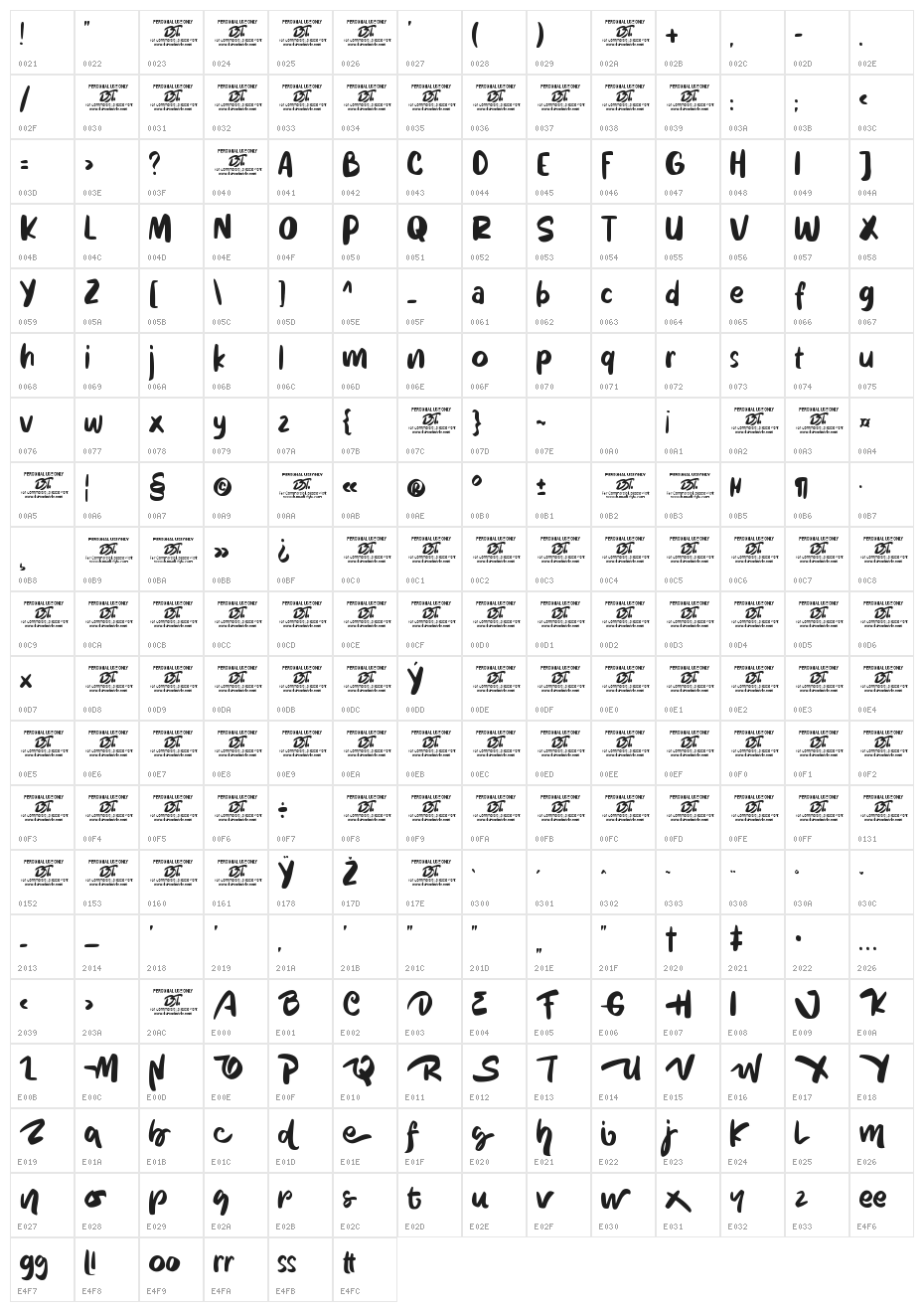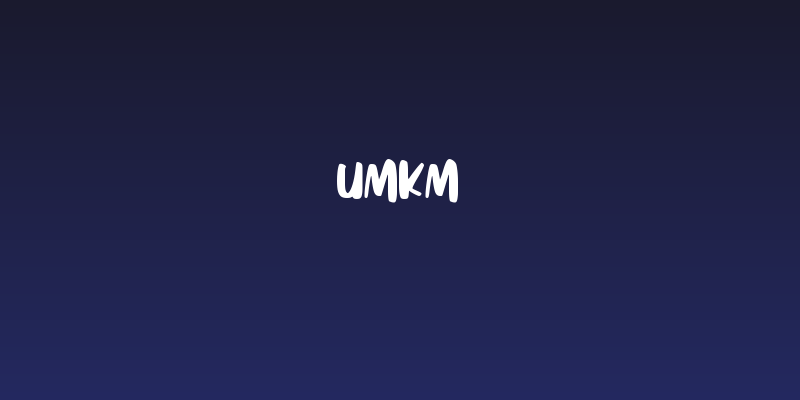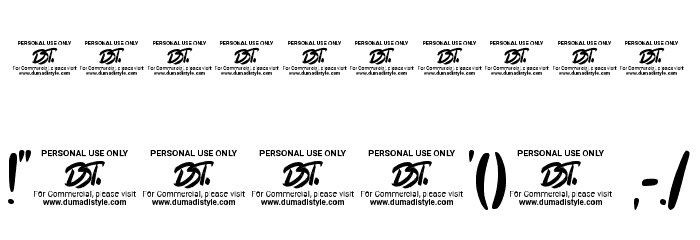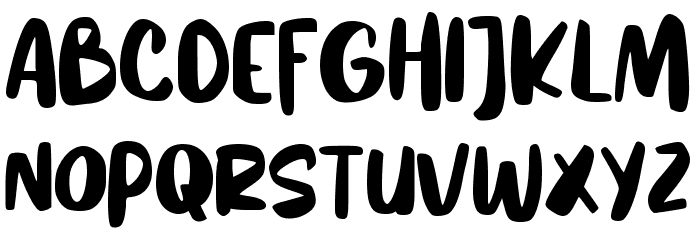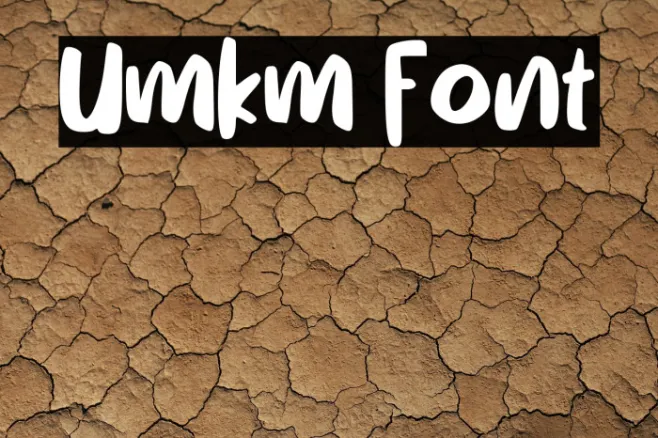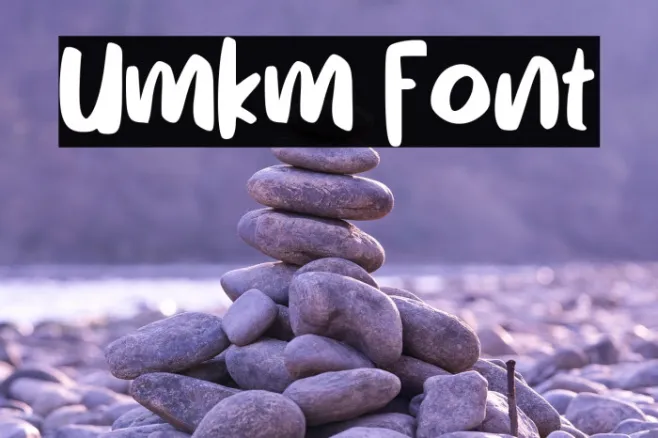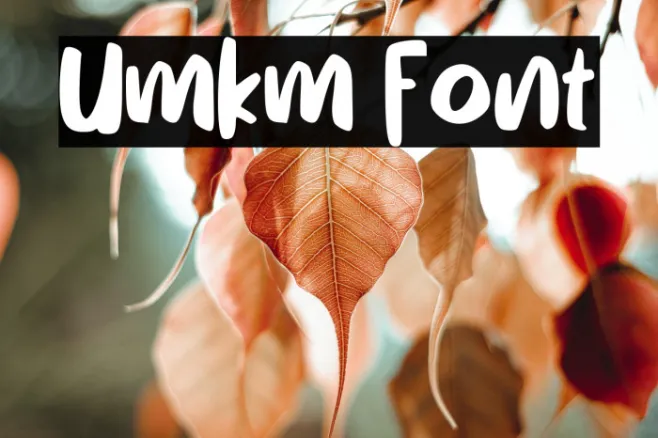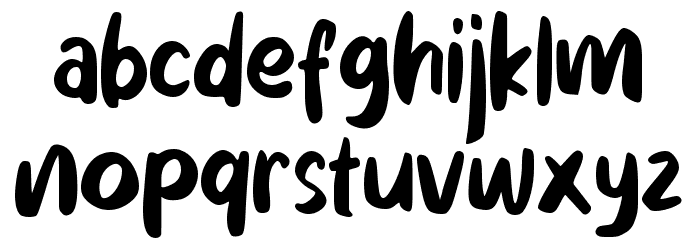
Umkm Font
Umkm Description
A playful, rounded handwritten typeface with bold strokes and a casual, friendly appearance. The letters have a consistent thickness and slightly irregular shapes, giving it a hand-drawn, informal feel.
| Overall Style | Playful, Casual, Decorative |
| Use Case | Headlines, Logos, Posters, Informal branding |
| Proposed Projects | Children's books, posters, greeting cards, branding for playful or informal products, social media graphics. |